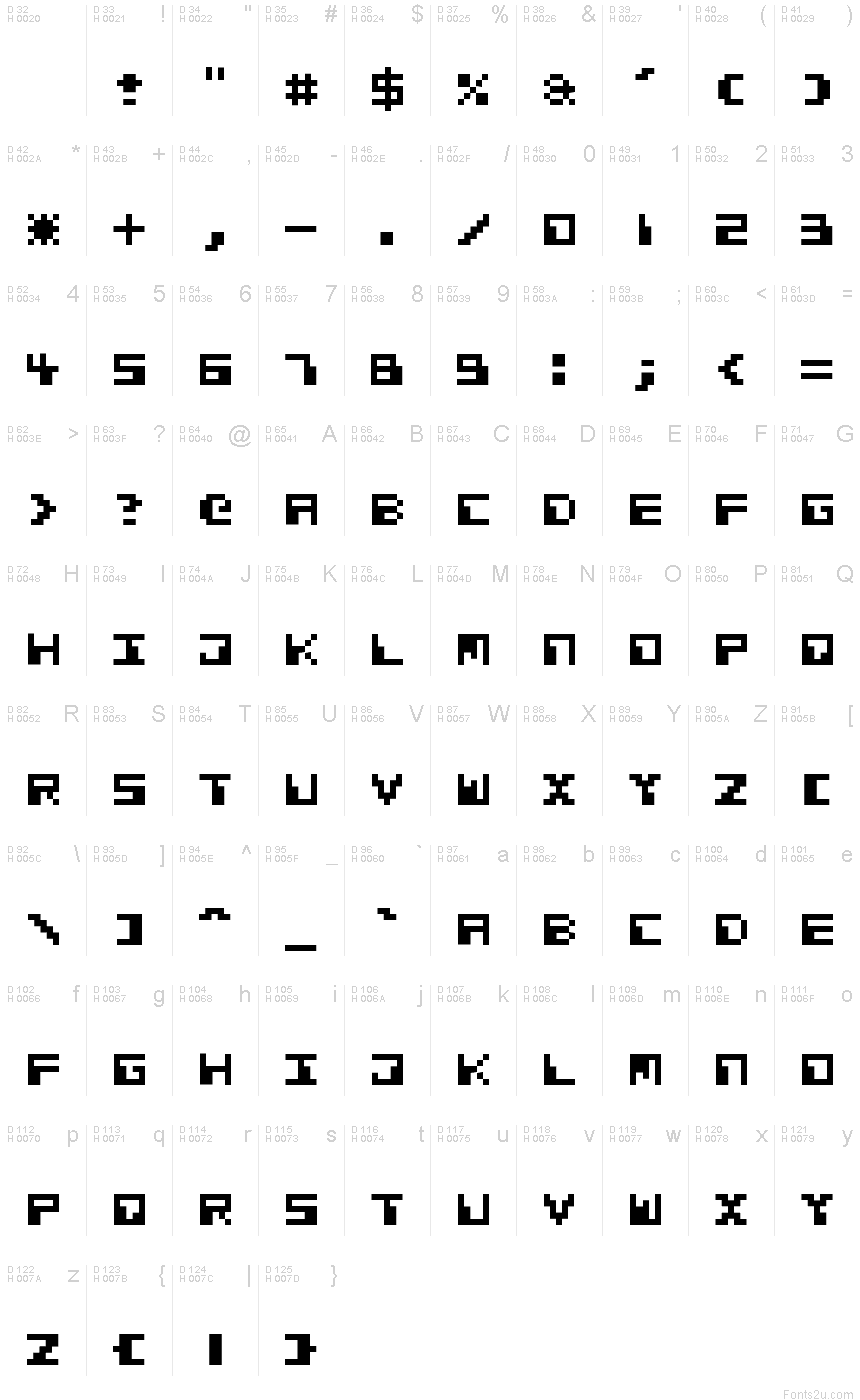
Cosmic Alien
Cosmic Alien font by ck! [freakyfonts] is a free pixel bitmap typeface that looks like it’s been carved straight out of an 8‑bit space console. Tall, rectangular letters march across the line in a strict grid, with chunky step-like corners and squared-off counters that feel mechanical yet strangely otherworldly. The heavy black shapes and tight rhythm give every word the weight of a glowing arcade title screen.
Using Cosmic Alien, you can lock in that retro sci‑fi mood for game logos, arcade cabinets, synthwave posters, YouTube thumbnails, stream overlays, and pixel-art interfaces. This free font wants to be used big, where each block snaps crisply into view, so keep it for headlines and pair it with a simple geometric sans or light pixel text for supporting copy.